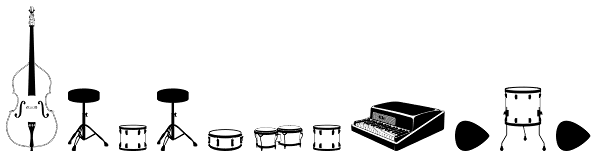
Ampmosphere
Ampmosphere, a picture font, contains instruments and components from a 60's rock and roll band. After a friend's request to create a guitar graphic, I decided to start a set. Over time, more instruments were added along with amps, tubes, lights...